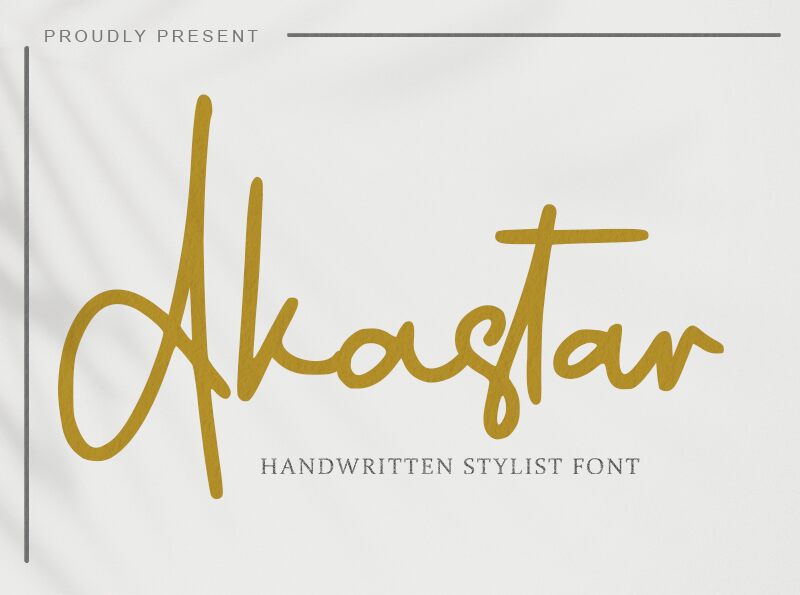
Akastar emerges as a refreshing take on handwritten fonts, imagined and brought to life by Alif Ryan Zulfikar. With its semi-light weight, Akastar offers an effortlessly sleek look that exudes modern elegance while retaining the personal touch of handcrafted penmanship. The fluidity of its characters suggests a sense of movement, making it particularly captivating for expressive branding, distinctive social media graphics, and personalized stationery designs.
Embracing both form and function, Akastar's aesthetic appeal lies in its balance between readability and artistic flair. Its style captures the spontaneity of a quick scribble yet maintains a structure that is coherent and accessible. This font is well-suited for projects that demand a blend of sophistication with the charm of imperfection found in genuine handwriting. Whether used for invitations, logos or editorial layouts, Akastar adds an intimate dimension to any creative endeavor it graces.